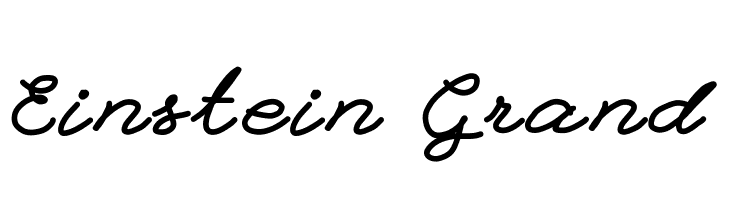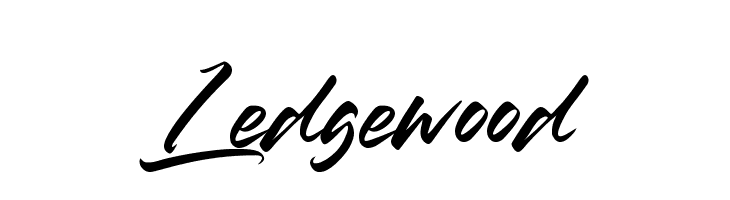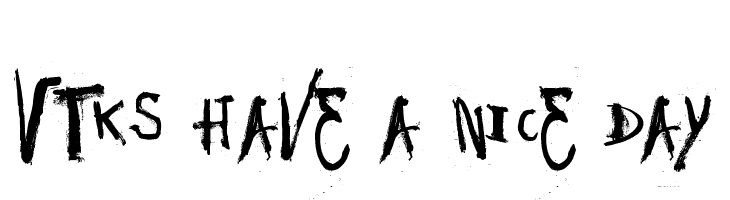
( Fonts by Milea Sajojo )
A fluid and elegant cursive script with medium contrast.
A bold, expressive font with a hand-painted, grungy style.
( Fonts by www.fugit-tempus.de )
A bold, angular font with a futuristic and industrial aesthetic.
( Fonts by www.fenotype.com )
Retro-themed dingbat set with music gear and vintage figures.
A minimalist, geometric font with a modern and futuristic style.
( Fonts by Insanitype )
A playful, rounded font with a bold, whimsical design.